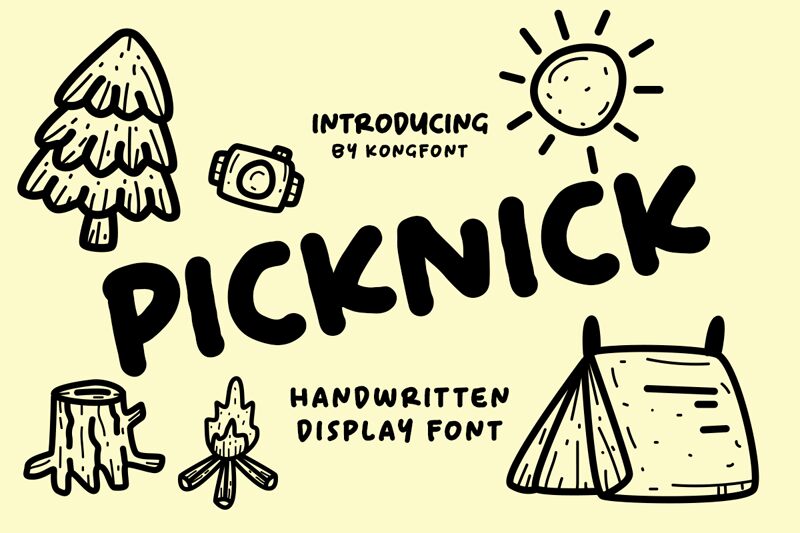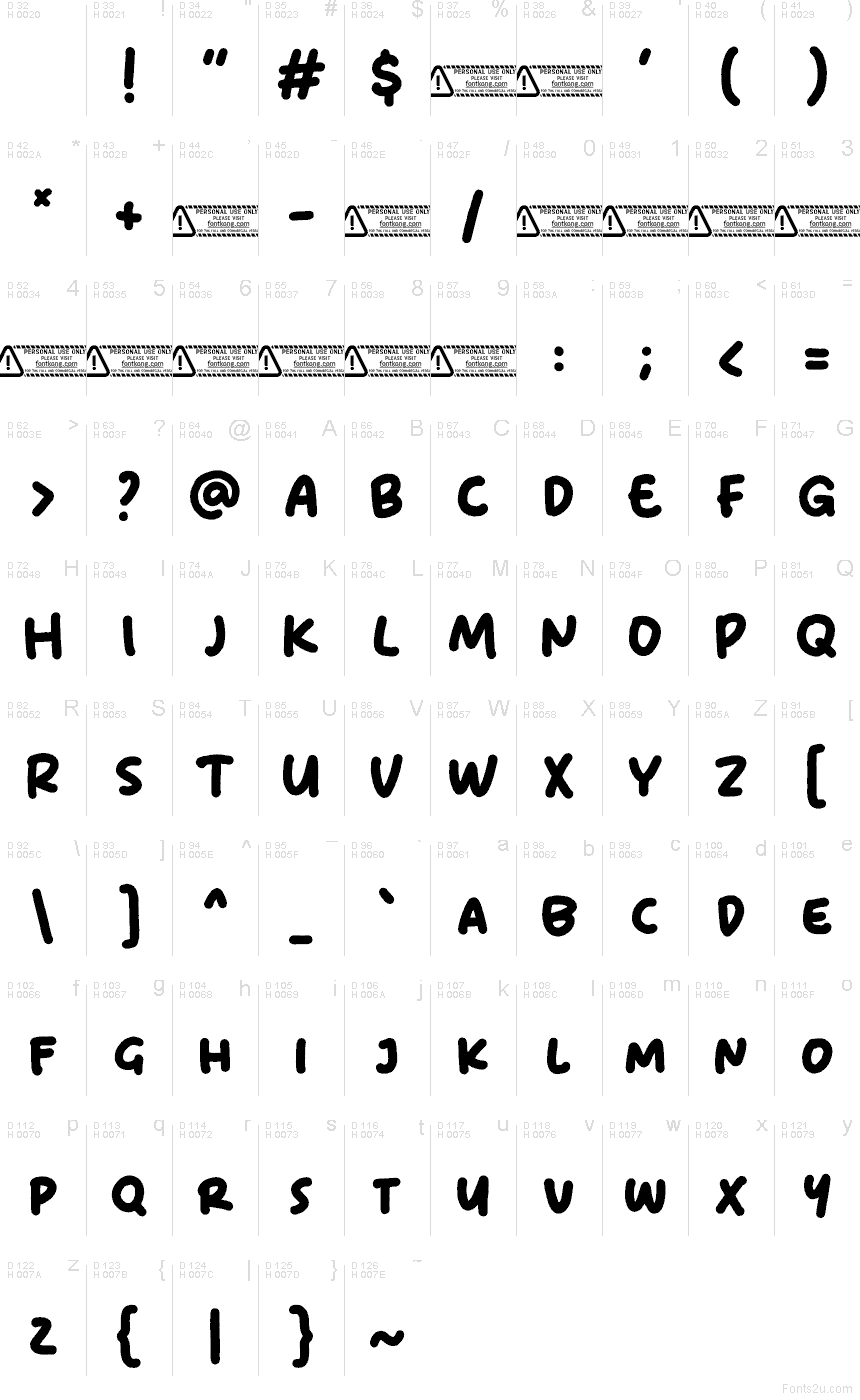
Picknick font by Kong Font is a free handwritten font with chunky, soft-edged letters that feel like they’ve been drawn with a thick marker on a sunny afternoon. The rounded strokes, tight rhythm, and slightly bouncy baseline give it a friendly, snackable energy—casual but bold enough to stand out on crowded layouts.
Using Picknick, this free font shines on kids’ party invitations, picnic or food truck branding, playful packaging, stickers, social media graphics, and bold header text on blogs. It stays readable even at larger sizes, making it great for big, punchy titles; pair it with a clean sans-serif for body copy to keep things fun but balanced.